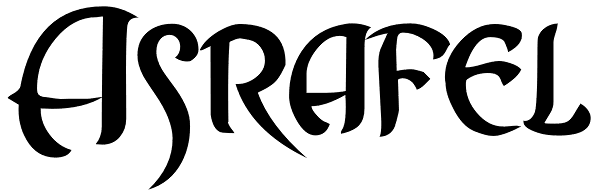
Asrafel
Asrafel is an original font by Dave Nalle. It is a strong, stylish titling font based on hand lettering influenced by Celtic uncial styles and Art Nouveau titling fonts. It includes a variety of alternate character forms to create interesting visual...